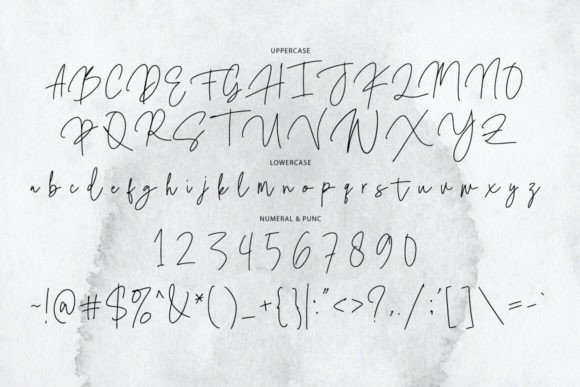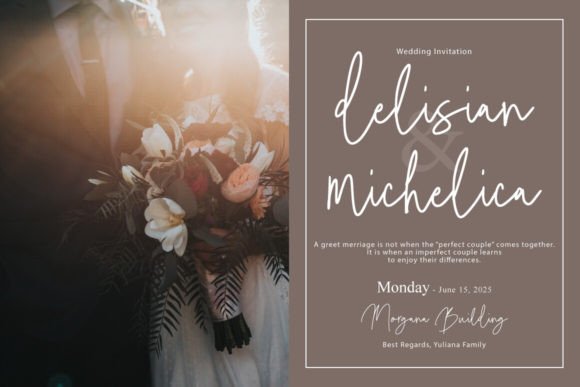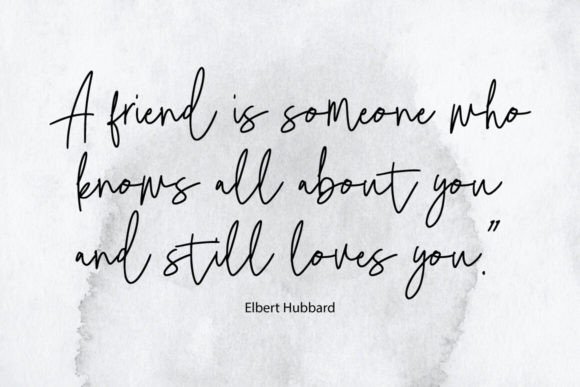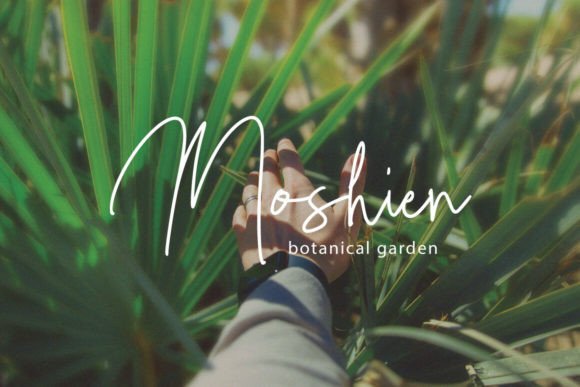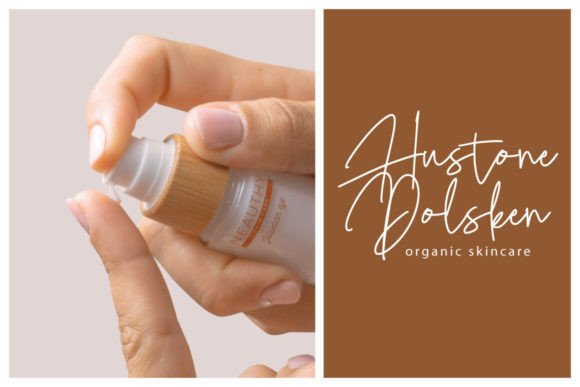
Introduction to Mordesta Font
Mordesta Signature with a handmade Signature style, decorative characters and a dancing baseline.
So beautiful on invitation like greeting cards, branding materials, business cards, quotes, posters, and more Mordesta Signature comes with 200+ glyphs.